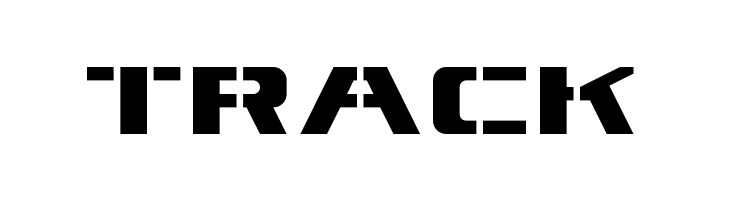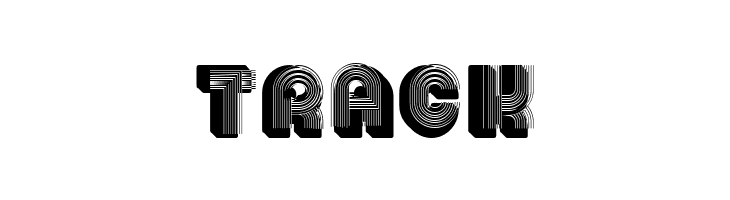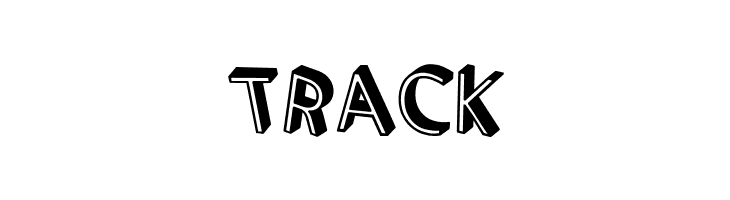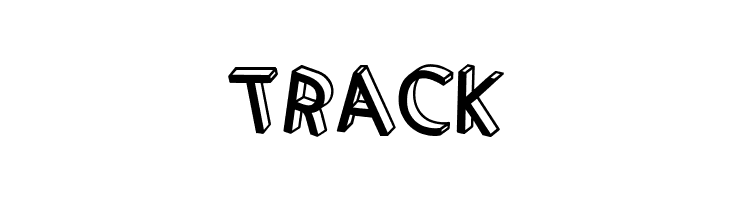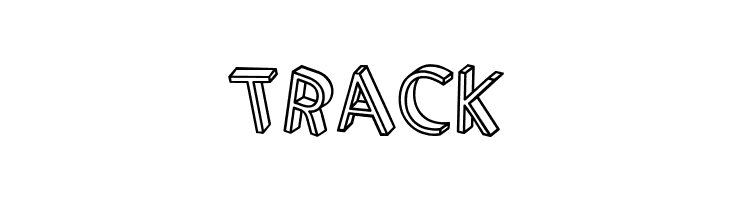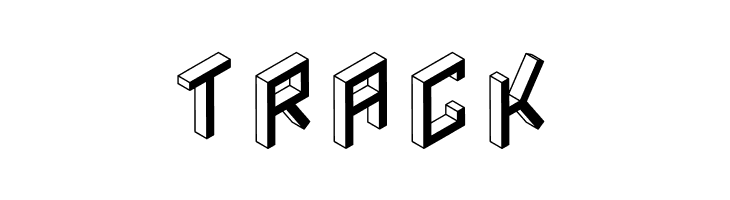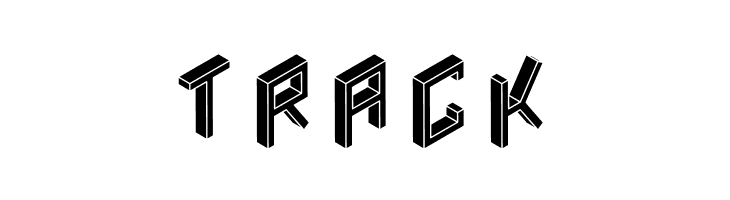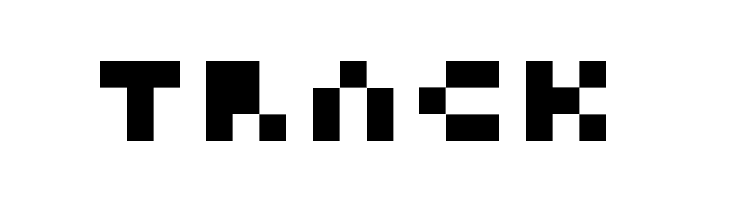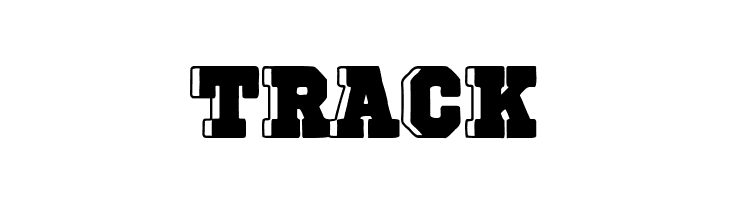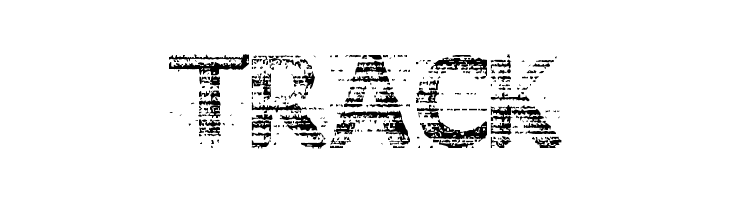
A bold, 3D isometric font with a modern, geometric style.
A bold, 3D isometric font with a geometric and modern style.
A bold, 3D font with a playful and dynamic style.
A bold, 3D font with inverted shadow effects for a striking appearance.
A bold, 3D font with shadow effects for a striking visual impact.
A bold, 3D font with layered, striped patterns creating a dynamic, geometric look.
A bold, 3D-effect font with a strong, blocky style ideal for dynamic displays.
A bold, distressed font with a rugged, vintage appearance.
A bold, geometric font with a futuristic, digital style.
A bold, distressed font with a gritty, urban aesthetic.
A pixelated, monospaced font with a retro digital aesthetic.
A bold, geometric font with a digital, pixelated design.
A grid-based outline font with a geometric and modern style.
A playful, heart-themed decorative font with a whimsical style.
A bold, stencil-style font with geometric shapes and sharp angles.
A bold, handwritten font with a playful and dynamic style.
A bold, stencil-like font with geometric influences and strong visual impact.
A bold, modern font with a stencil-like, industrial design.
A bold, modern font with rounded edges and a strong presence.
A playful, bold handwritten font with dynamic strokes and a casual style.